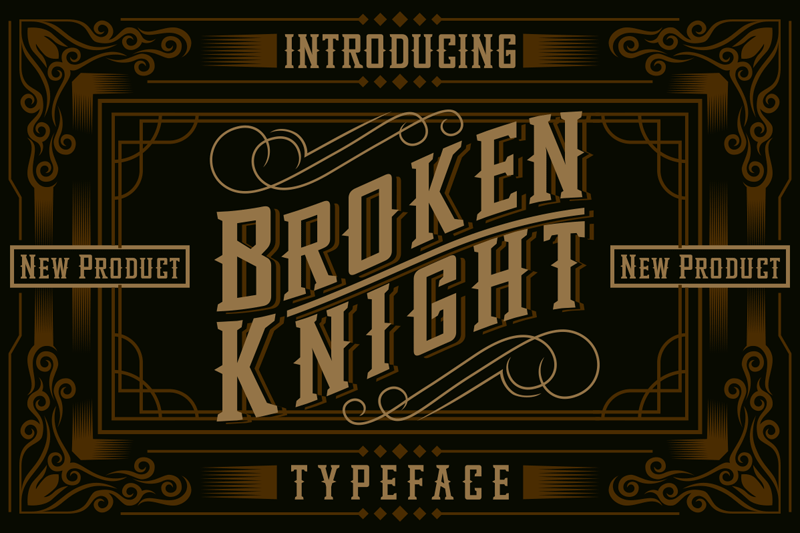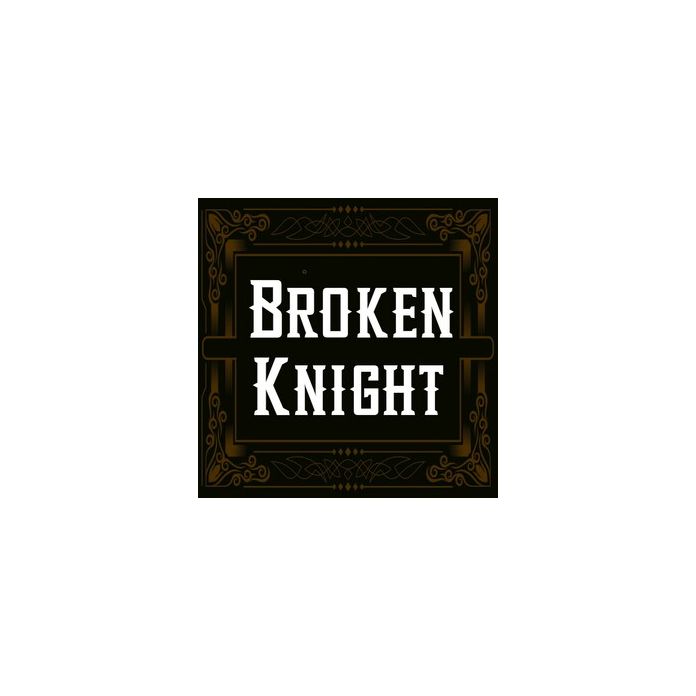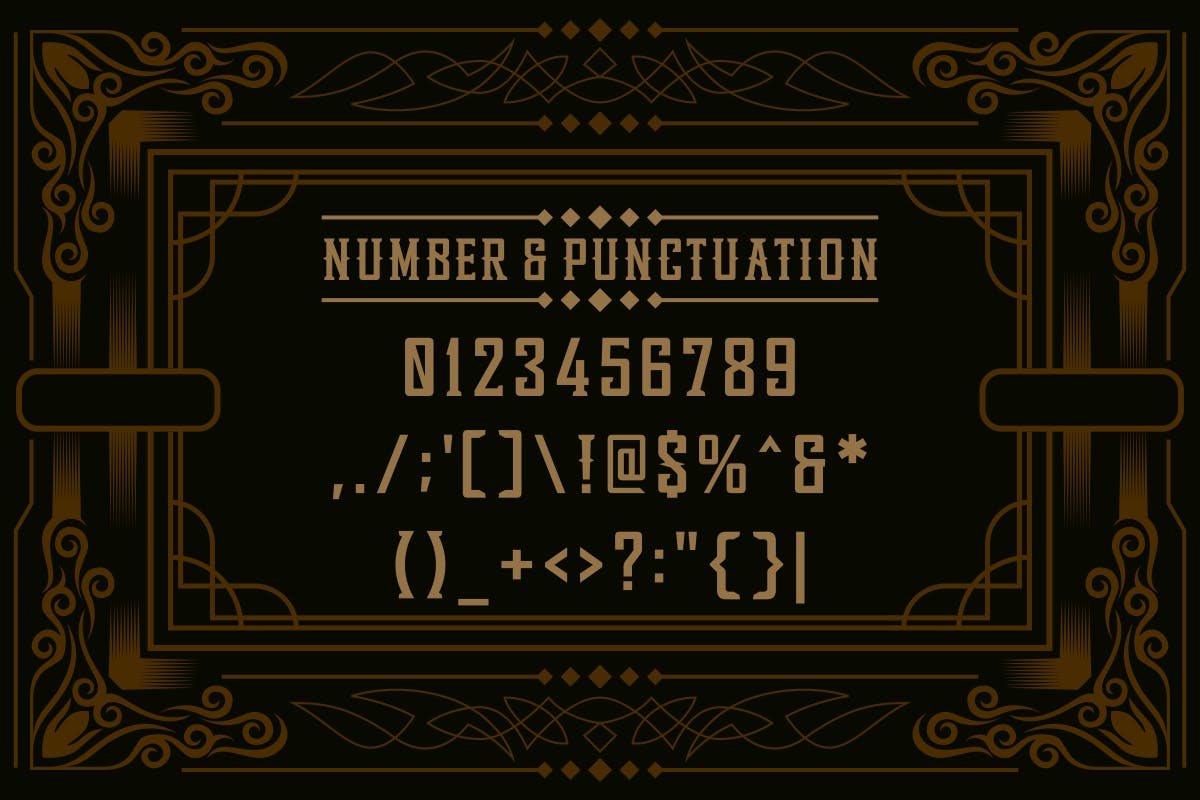
Broken Knight Font - This font features a bold and. Bold, angular serif font with a medieval flair. This font for personal use. The broken knight font contains 151 beautifully designed characters. Broken knight font can be used in different purposes:
The broken knight font contains 151 beautifully designed characters. This font features a bold and. Broken knight font can be used in different purposes: This font for personal use. Bold, angular serif font with a medieval flair.
The broken knight font contains 151 beautifully designed characters. This font features a bold and. Bold, angular serif font with a medieval flair. Broken knight font can be used in different purposes: This font for personal use.
The broken knight font contains 151 beautifully designed characters. This font features a bold and. This font for personal use. Broken knight font can be used in different purposes: Bold, angular serif font with a medieval flair.
Broken knight font can be used in different purposes: This font for personal use. Bold, angular serif font with a medieval flair. This font features a bold and. The broken knight font contains 151 beautifully designed characters.
This font features a bold and. This font for personal use. Broken knight font can be used in different purposes: The broken knight font contains 151 beautifully designed characters. Bold, angular serif font with a medieval flair.
Broken Knight Font
Broken knight font can be used in different purposes: This font features a bold and. This font for personal use. Bold, angular serif font with a medieval flair. The broken knight font contains 151 beautifully designed characters.
Broken knight font can be used in different purposes: The broken knight font contains 151 beautifully designed characters. Bold, angular serif font with a medieval flair. This font for personal use. This font features a bold and.
Broken Knight font
This font features a bold and. This font for personal use. Bold, angular serif font with a medieval flair. Broken knight font can be used in different purposes: The broken knight font contains 151 beautifully designed characters.
Broken Knight Font
Bold, angular serif font with a medieval flair. This font features a bold and. The broken knight font contains 151 beautifully designed characters. This font for personal use. Broken knight font can be used in different purposes:
Broken Knight font
Broken knight font can be used in different purposes: This font for personal use. This font features a bold and. The broken knight font contains 151 beautifully designed characters. Bold, angular serif font with a medieval flair.
Broken Knight Font
Broken knight font can be used in different purposes: The broken knight font contains 151 beautifully designed characters. Bold, angular serif font with a medieval flair. This font for personal use. This font features a bold and.
Broken Knight Font Can Be Used In Different Purposes:
The broken knight font contains 151 beautifully designed characters. This font for personal use. This font features a bold and. Bold, angular serif font with a medieval flair.